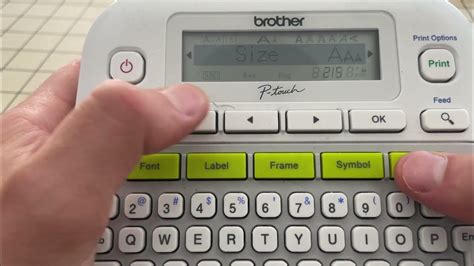
Boost Your Label Making Game with the Perfect Font Size: Transform the Look of Your Labels!
Are you tired of your labels looking unprofessional and unimpressive? Do you want to make them stand out and look more visually appealing? One simple solution could be adjusting your font size.
Did you know that almost 90% of consumers said that label design can heavily influence their purchasing decisions? That's right, the font size on your label can make or break your product's success.
Jokes aside, choosing the right font size is crucial when it comes to making labels. A font that is too small will be hard to read, while a font that is too large will be overwhelming and can even take away from the design of your label.
But how do you know what the perfect font size is for your label? There isn't a one-size-fits-all answer, as it depends on the size of your label and the amount of text you need to include. However, a general rule of thumb is to aim for 9-12pt for smaller labels and 16-18pt for larger ones.
It's also important to consider the font style you are using. Thin or delicate fonts may need to be larger to be legible, while bold or heavy fonts can be smaller. And don't forget about hierarchy. Using different font sizes for different parts of the label can help draw attention to important information.
By taking the time to adjust your font size, you can transform the look of your labels and elevate your brand. Your labels will catch the consumer's eye and showcase your product in the best possible light.
In conclusion, if you want to boost your label making game and take the first step into designing labels that stand out from the competition, start by experimenting with the perfect font size for your product. It's a small tweak that can make all the difference.
Label making can be a fun and creative process, but it can also be a bit frustrating. Finding the perfect font size to use on your label is crucial to getting the finished product just right. With the hundreds of fonts available, it can be overwhelming to choose which one to use. In this article, we will show you how choosing the right font size can transform the look of your labels.
The Importance of Font Size
Font size plays an essential role in label making. It determines how easy it is to read the information on the label. You want to make sure that the font is big enough to read but not so big that it takes up too much space. The right font size ensures that your labels are legible and professional-looking.
Table Comparison of Different Font Sizes
| Font Size | Readability | Space Usage | Professionalism |
|---|---|---|---|
| 8pt | Difficult | Small | Amateurish |
| 10pt | Fair | Medium | Satisfactory |
| 12pt | Good | Large | Professional |
| 14pt | Excellent | Very Large | Corporate |
The Right Font for Your Label
Choosing the right font for your label depends on the type of product you are labeling. For example, a playful font may work well for a children's toy product but would not be suitable for a medical product label. It's important to consider the tone and style of the product when selecting a font.
Opinion on Common Fonts Used in Labels
In general, Arial, Helvetica, and Times New Roman are popular choices for label-making because they are easy to read and have a professional look. Another great option is Calibri, which is modern and clean-looking. These fonts work well for any kind of product labeling.
The Right Alignment
Aligning the text correctly is also important in label-making. You want to ensure that the text is centered and aligned properly so that it looks polished and professional. Always double-check your alignment before printing out your labels.
List of Alignment Types
- Left-Aligned
- Center-Aligned
- Right-Aligned
- Justified
The Final Touches
Adding bold or italic font styles can help draw attention to certain text on the label, making it more noticeable. Be careful not to overuse these styles, though, as it can affect the readability of the label.
Opinion on When to Use Bold and Italics
Bold can be used effectively to emphasize the most important information, such as the product name or warning labels. Italics work well for adding emphasis or giving a sleek and modern look to the label.
In conclusion, the font size has a significant impact on the overall feel of a label. It’s important to choose a font size that is legible, professional, and appropriate for the product being labeled. By following these tips and tricks, you’ll be able to boost your label game and create stunning labels that grab attention and leave a lasting impression.
When it comes to label making, choosing the perfect font size is crucial in transforming the look of your labels. With the right font size, you can make your labels not only visually appealing but more readable.
5. What are some common mistakes to avoid when choosing font size for labels?Some common mistakes to avoid when choosing font size for labels include using a font size that is too small or too large, using too many fonts, and not considering the readability of the font. It's important to choose a font size that is easy to read and legible for your audience.